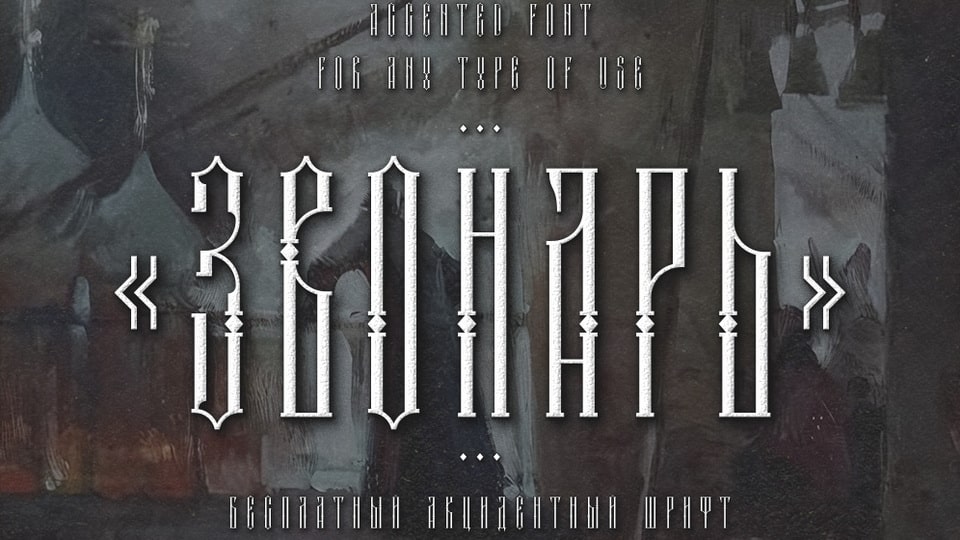
TD Zvonar Font › Fontesk
Download TD Zvonar font, a striking display typeface that channels the grandeur and mystery of old Russia. Its tall, ornate letterforms are inspired by the aesthetics of Orthodox bell towers and early Slavic engraving